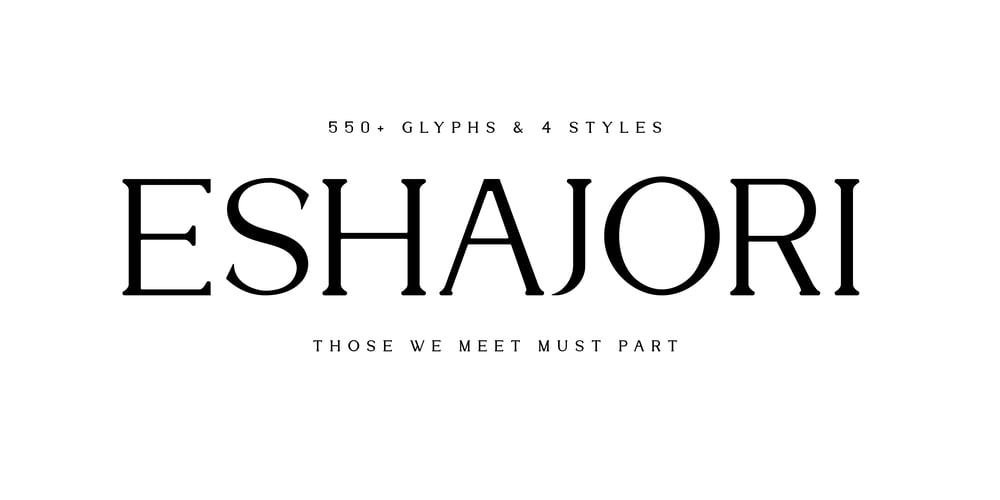
Eshajori Font Family was designed by HTL Ryan and published by Zenmurai. Eshajori contains 4 styles and family package options. Eshajori is an elegant and soft serif font. The primary challenge in designing this font was finding a balance between complexity and simplicity, while ensuring it could be used on both computer screens and in print. Another challenge was achieving harmony between the characters, punctuation, and numerals, creating a visually appealing and playful visual vocabulary overall.